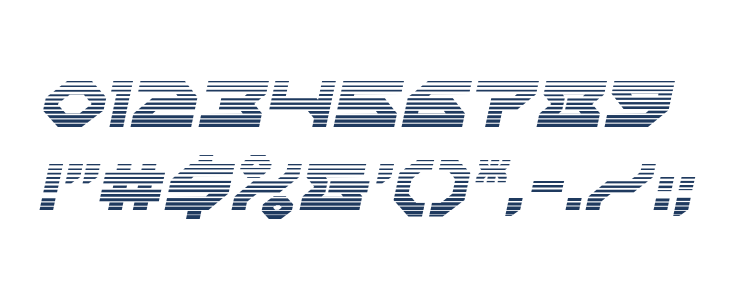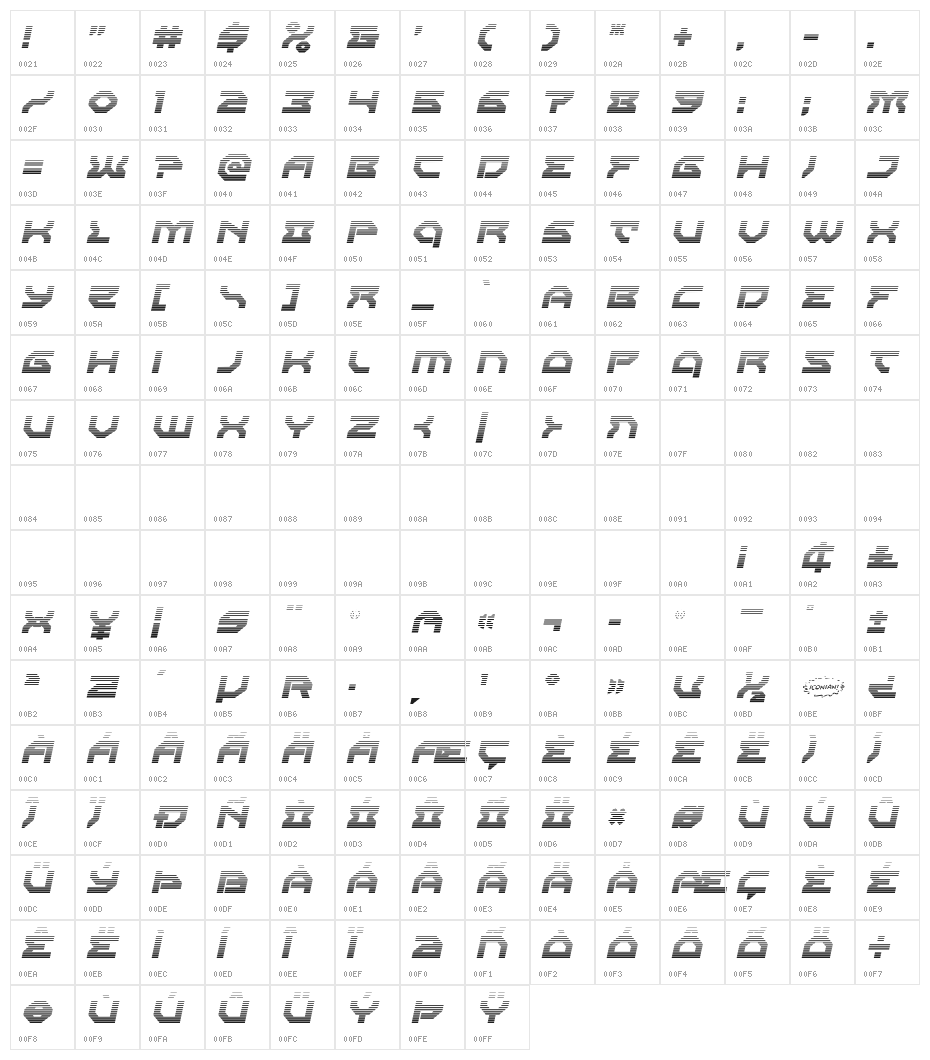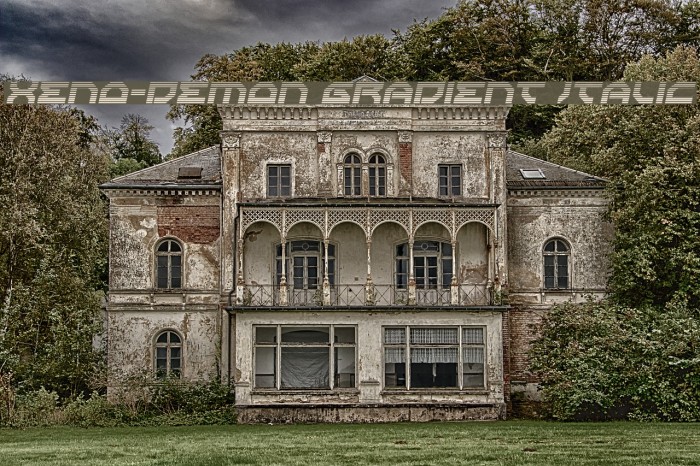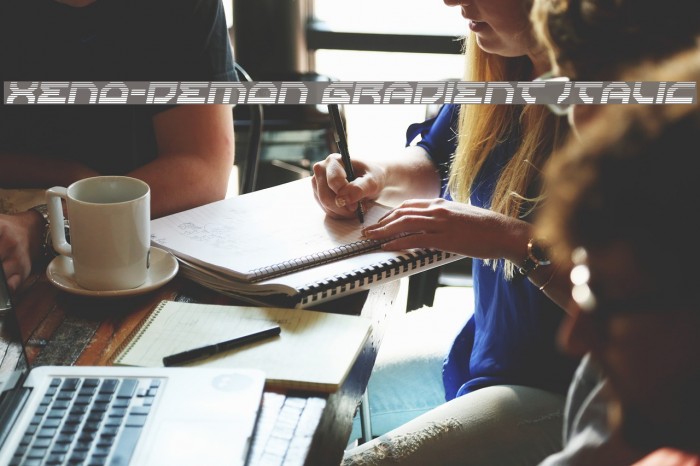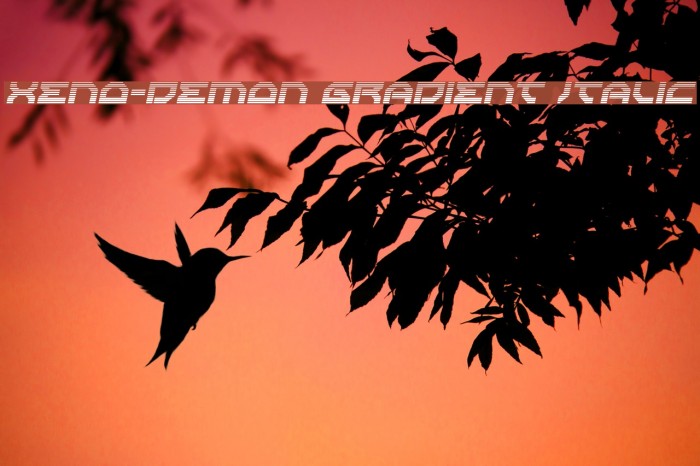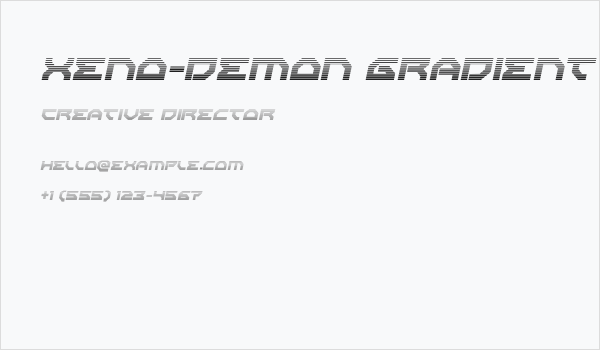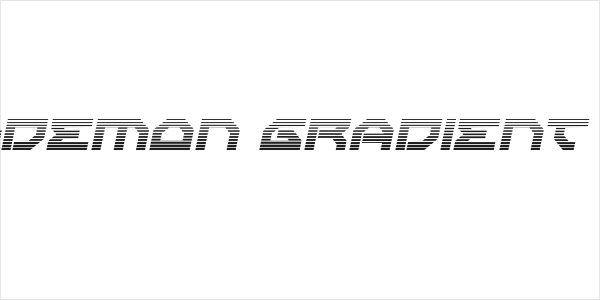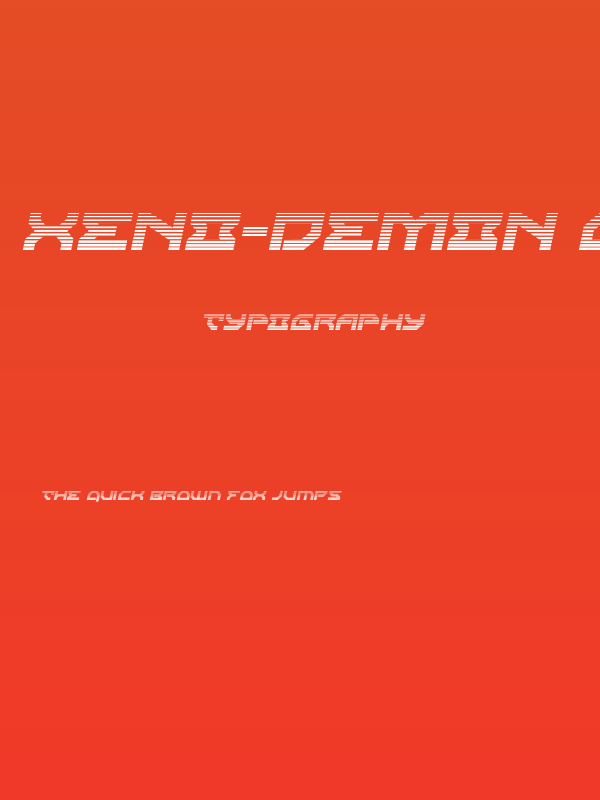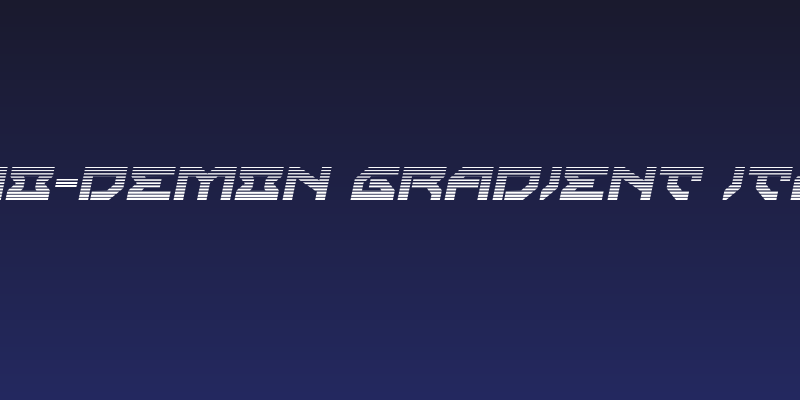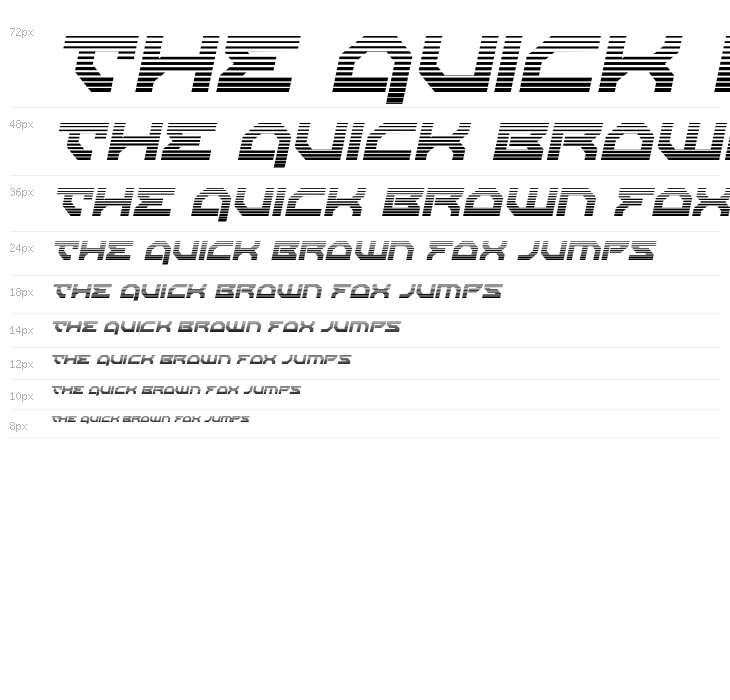
Xeno-Demon Gradient Italic Font
Xeno-Demon Gradient Italic Description
This font features a futuristic and dynamic design, characterized by its gradient-like horizontal lines that create a sense of movement and depth. The italicized style adds a forward-leaning energy, enhancing its modern and edgy appearance. Each character is composed of segmented lines, giving it a digital and high-tech feel. The uppercase and lowercase letters maintain a consistent style, while the numbers and special characters integrate seamlessly with the overall aesthetic. The font's unique structure makes it stand out, ideal for projects that require a bold and innovative look.